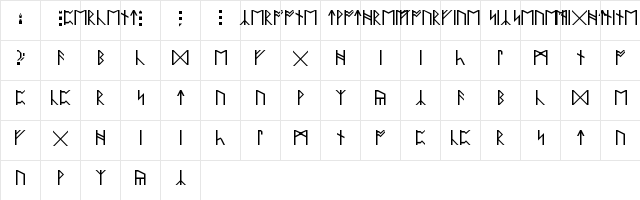
Anglo Saxon Runes Regular
| Designer | James M. Anderson |
Design Context for Anglo Saxon Runes Typeface
Anglo Saxon Runes is a composed and adaptable typeface that performs quietly and consistently across a wide range of design contexts.